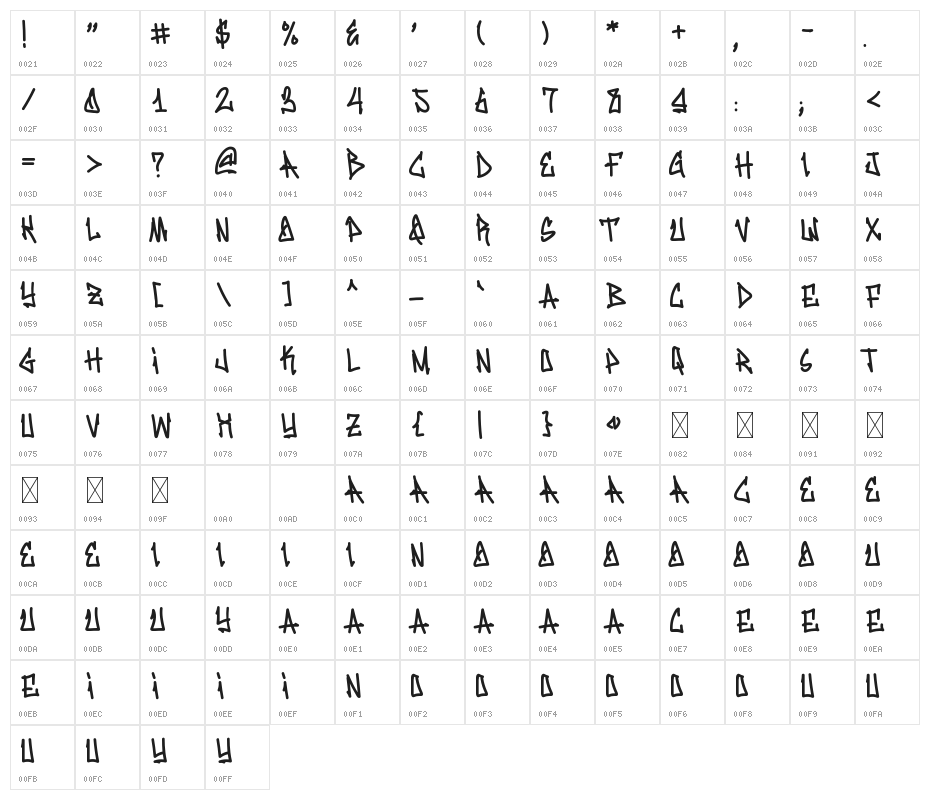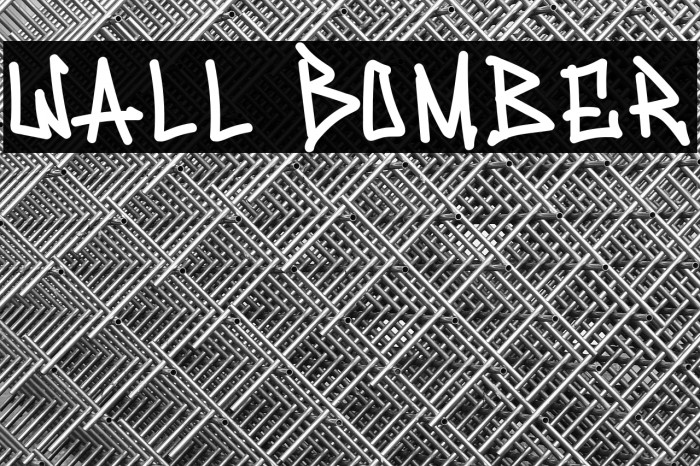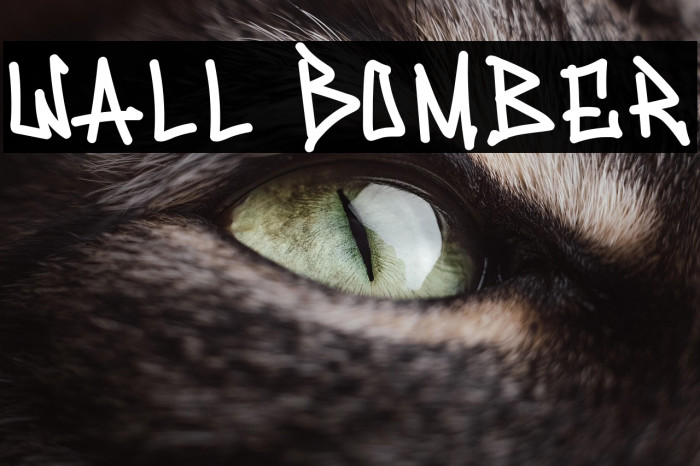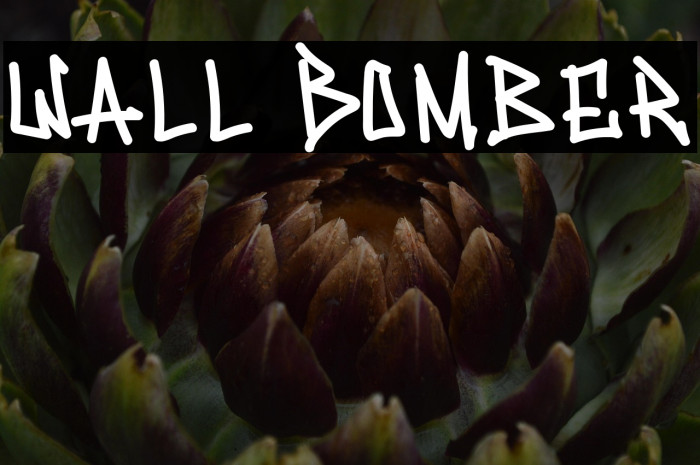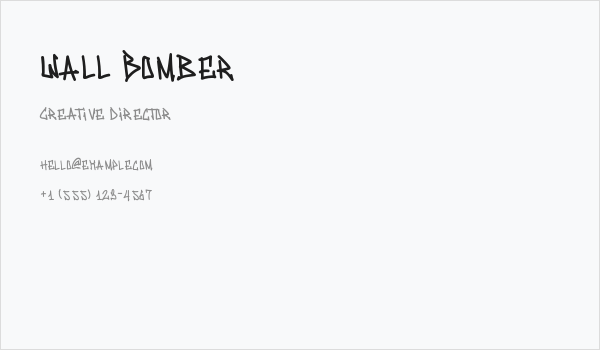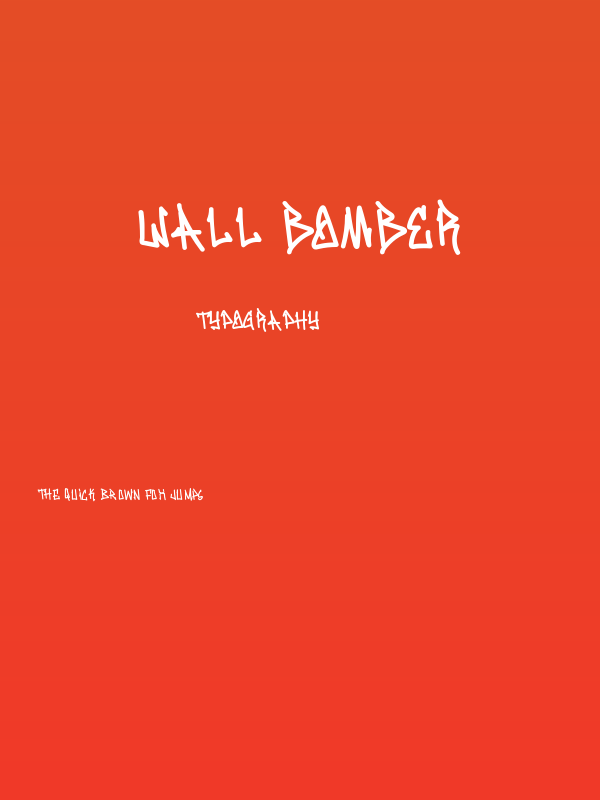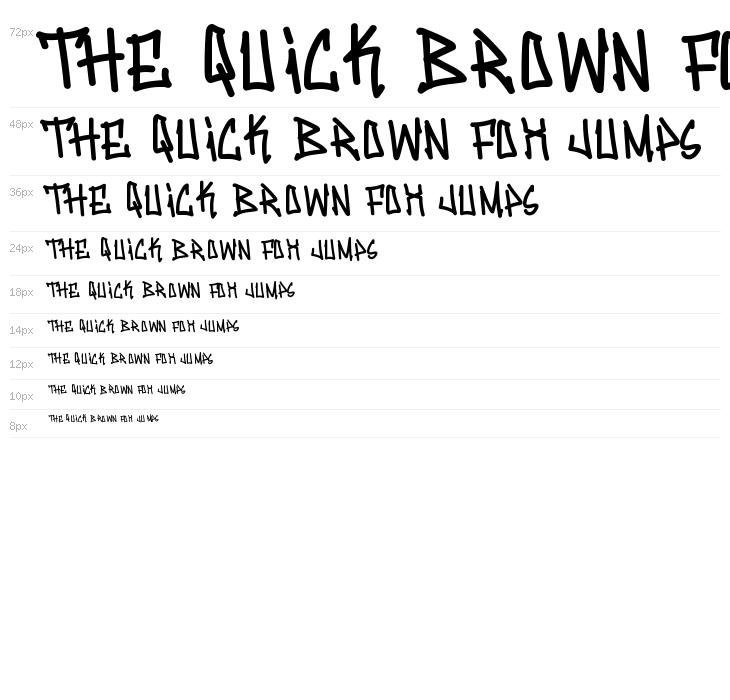
Wall Bomber Font
Wall Bomber Description
This font exudes a bold and rebellious spirit, reminiscent of urban graffiti and street art. The characters are dynamically styled with sharp angles and irregular strokes, giving each letter a sense of movement and energy. The uppercase and lowercase letters maintain a consistent style, with a raw, hand-drawn appearance that adds to its edgy aesthetic. Numbers and special characters follow the same design ethos, ensuring a cohesive look across all text. This font is perfect for projects that require a strong, unconventional visual impact.
| Overall Style | Urban, Graffiti, Edgy |
| Use Case | Headlines, Posters, Branding |
| Proposed Projects | Ideal for street art projects, urban-themed posters, edgy branding, and music album covers. |